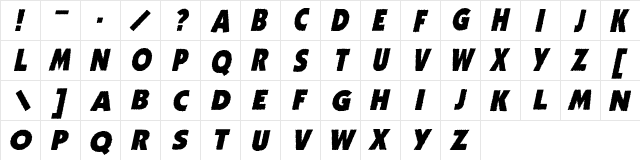
Zhukov Zippo Italic
| Foundry | NinjaLettering.com |
| Designer | Jason Arthur |
Design Context for Zhukov Zippo Typeface
Zhukov Zippo offers clean, dependable letterforms without strong stylistic allegiance, making it a practical choice for designers who need flexibility. The dynamic lean of this cut emphasises speed and emphasis in any layout.
Pro Tip: Try Zhukov Zippo for annotation and caption copy alongside an upright companion — the contrast in angle creates a dynamic but ordered typographic system.